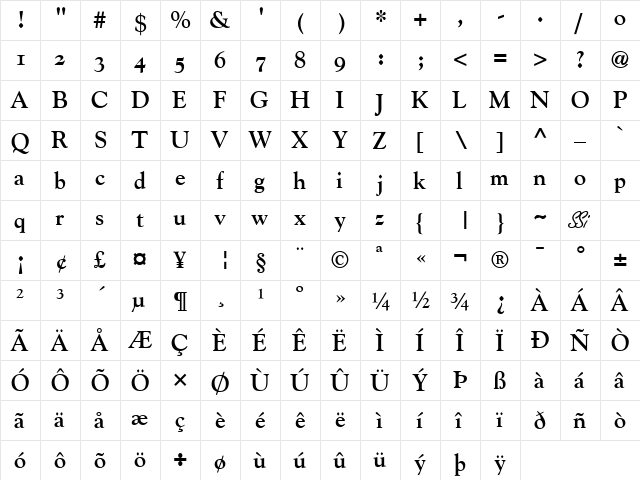
Goudy OldStyle SSi Bold Old Style Figures
Design Context for Goudy OldStyle SSi Typeface
Goudy OldStyle SSi brings classic typographic sensibility to the table — its serifs and measured letterforms reflect centuries of print heritage. Its bold stroke weight gives it real presence on the page.